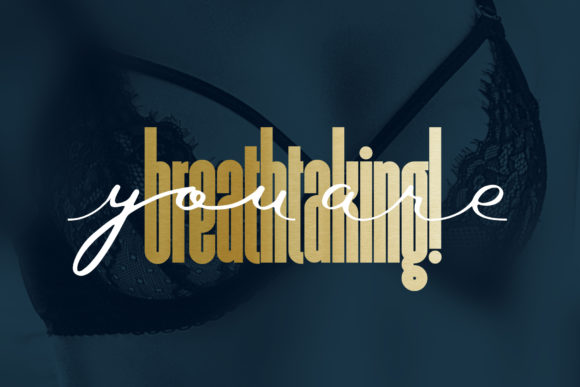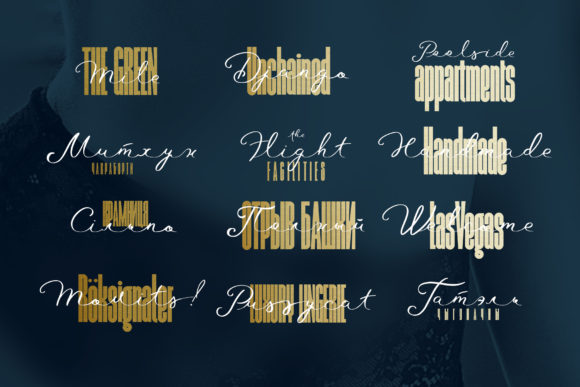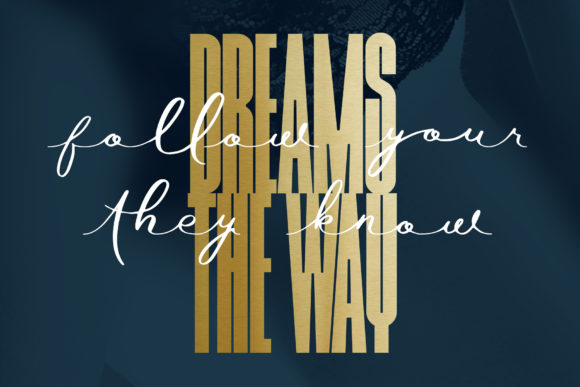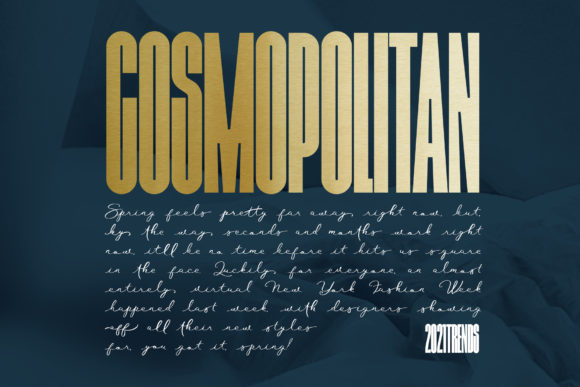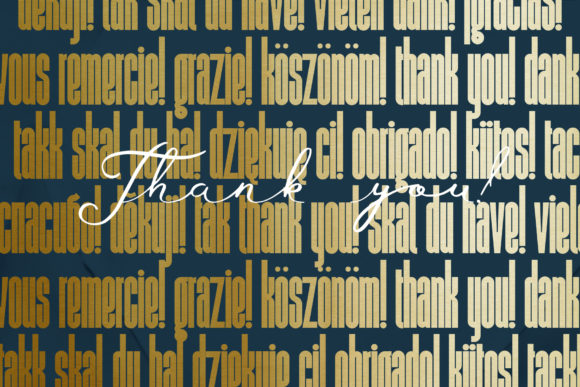
Introduction to LaBonita Font
You’ve been staring at your computer screen for hours, trying to bring your creative project to life. The perfect design is just a click away, but it’s missing that one special element – the right font. That’s where LaBonita Font comes in, a spectacular duo font that will elevate your designs to new heights.
Imagine a font that seamlessly blends the elegance of a sans serif with the charm of a script. That’s what you get with LaBonita Font, an incredibly versatile design resource that fits a wide range of creative projects. Whether you’re working on a logo, a brochure, or a website, this font is sure to make your design stand out.
Key Features of LaBonita Font
- LaBonita Font is a high-quality design resource ideal for creative projects, offering a unique and elegant aesthetic.
- This font family features a transparent background, allowing for easy layering and customization in design compositions.
- LaBonita Font includes a wide range of characters, including uppercase and lowercase letters, numbers, and punctuation marks.
- LaBonita Font is a versatile design element, suitable for use in a variety of creative projects, from branding and logos to digital art and typography.
Honest Review: LaBonita Font
I recently stumbled upon the LaBonita Font, a free download that’s been making waves in the design community. As a designer, I was eager to put it to the test and see if it lives up to the hype.
- High-quality design: The LaBonita Font boasts a stunning, high-quality design that’s perfect for creative projects.
- Transparent background: The transparent background option is a huge plus, allowing for seamless integration with any design resource.
- Limited font variations: While the font itself is beautiful, the number of variations is somewhat limited.
- Not ideal for large text: The font may not be the best choice for large text, as it can become difficult to read.
Overall, I’m impressed with the LaBonita Font. It’s a solid addition to any designer’s toolkit, and its high-quality design and transparent background make it a great choice for creative projects. While it may have some limitations, I’d still highly recommend it to fellow designers looking for a reliable font resource.
LaBonita Font is a high-quality design resource that can elevate your creative project. With a transparent background, this font is perfect for various applications.
Getting the Most Out of LaBonita Font
To get the most out of LaBonita Font, use it in combination with other high-quality design resources. Experiment with different font sizes, colors, and arrangements to create a visually appealing design.
LaBonita Font is perfect for various creative projects, including:
- Branding